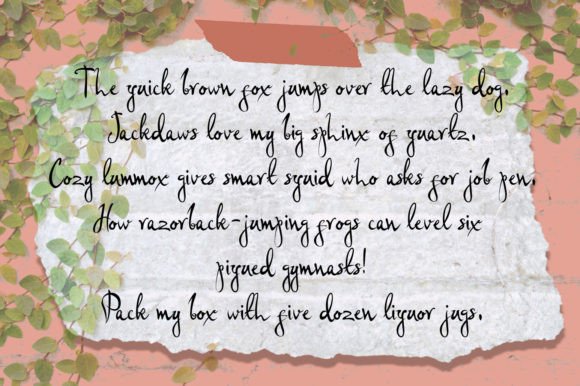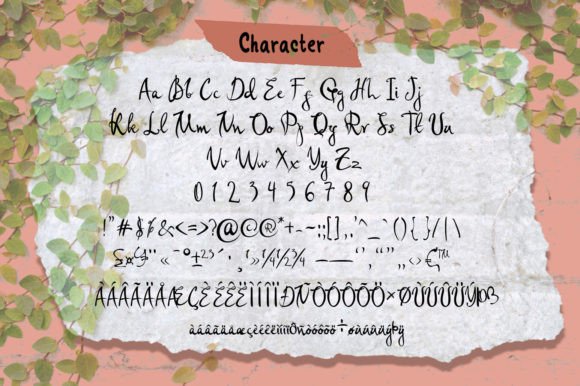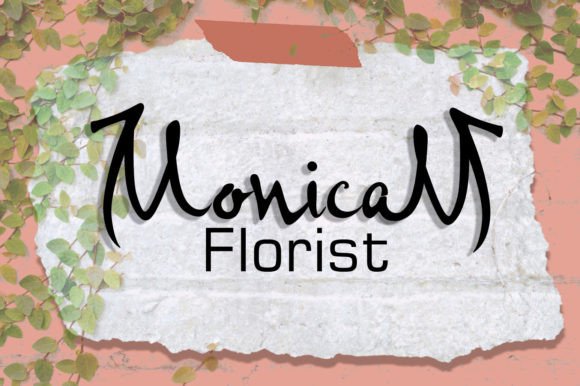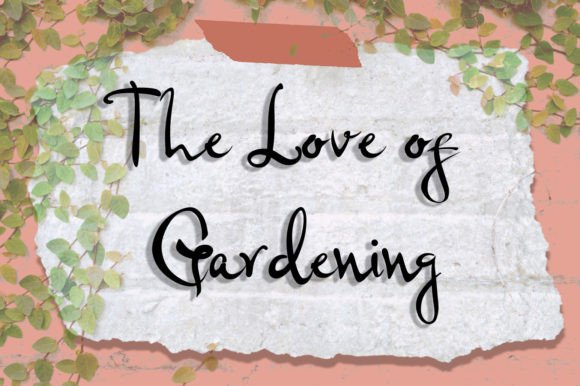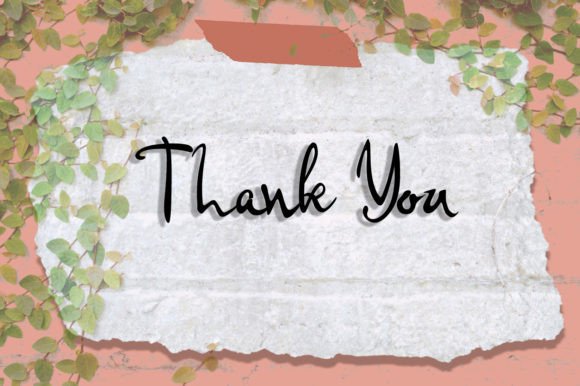
Introduction to Simple Plan Font
Simple Plan is a casual and fun handwritten font.
Whimsical and a little bit quirky, this font will be great for a wide spectrum of applications that require a fun handwritten touch .
Key Features of Simple Plan Font
Why Choose Simple Plan Font?